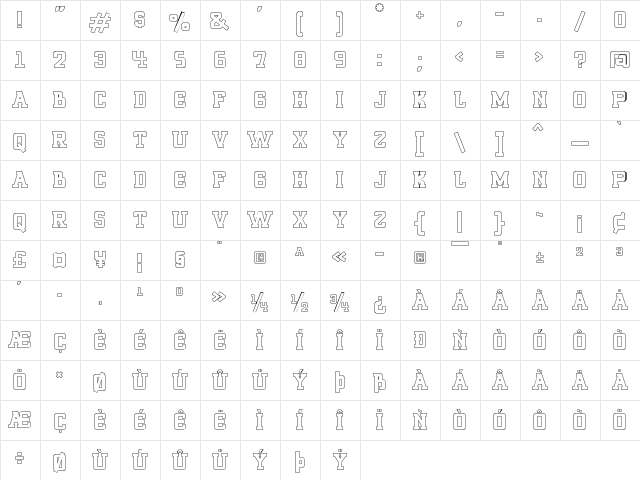
ROQUERO Personal Use Only !! Outline
| Style | Outline |
| Foundry | FallenGraphic |
| Designer | Vava Aryanto |
Design Context for ROQUERO Personal Use Only !! Typeface
ROQUERO Personal Use Only !! brings ornamental detail and strong personality to headlines and identities, where visual impact matters more than quiet functionality.
Font Pairing: Pair with a clean neutral sans-serif for body copy to let ROQUERO Personal Use Only !!'s character lead without overwhelming the composition.
Pro Tip: Treat ROQUERO Personal Use Only !! as the centrepiece of your typographic hierarchy. One strong heading set in a decorative face can carry an entire layout.